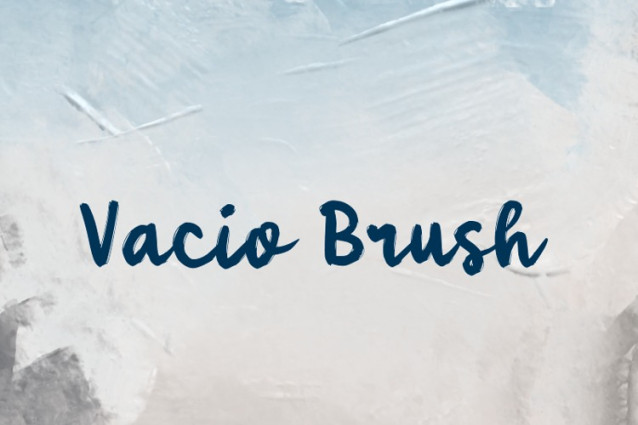
Vacio Brush Font
Vacio Brush Font, inspired by brush lettering-style typography. This font is perfect for a design that makes it more attractive and playful. It was made with a very good level of aesthetics, making this font suitable for a book cover, poster, packaging, merchandise, logotype, and much more.